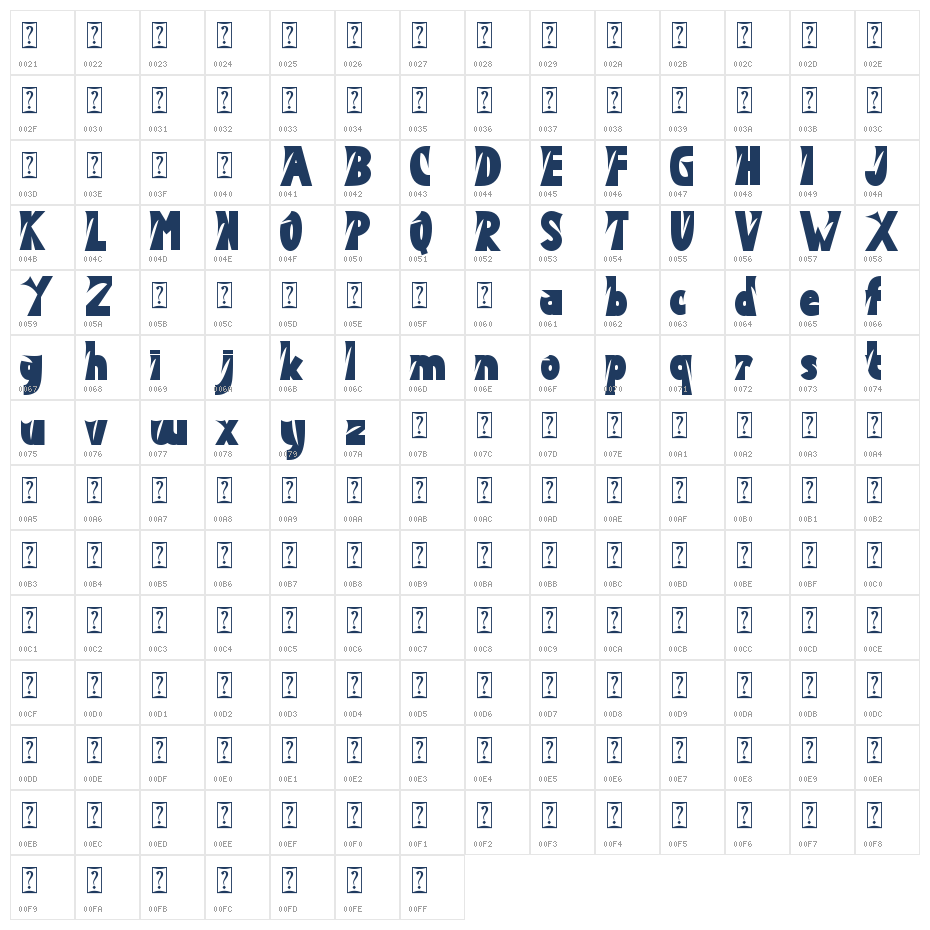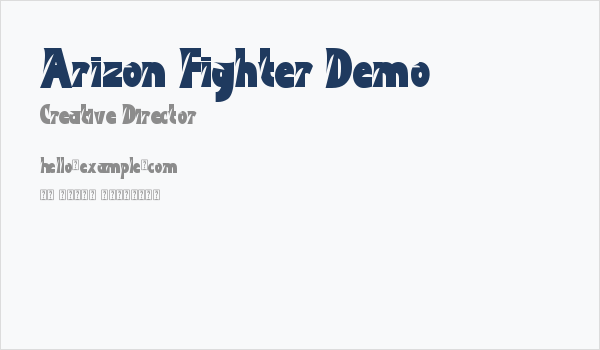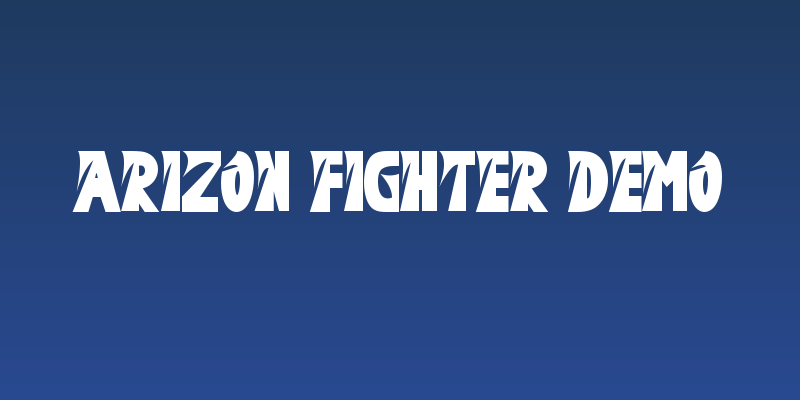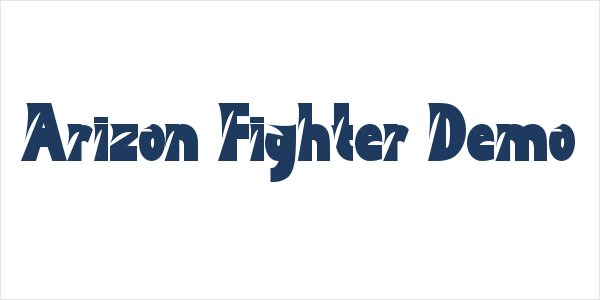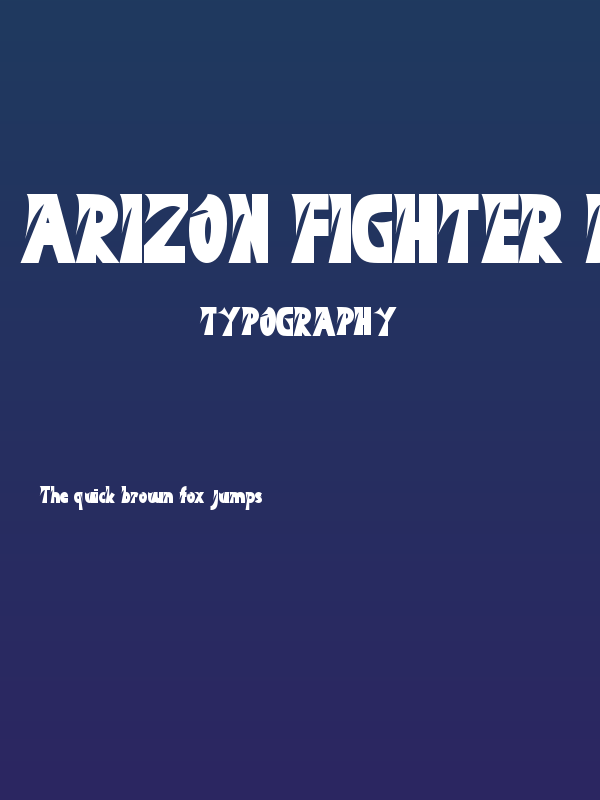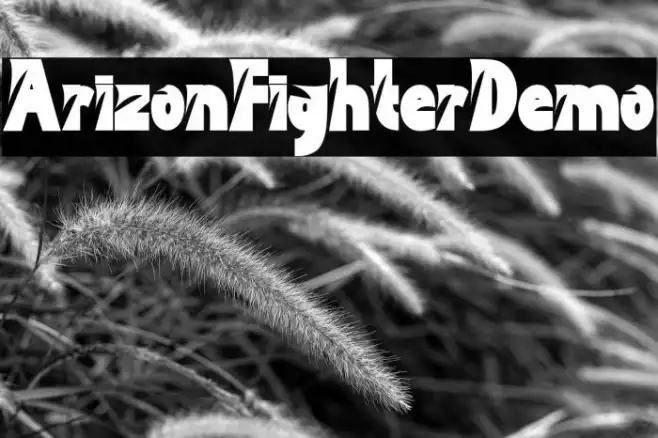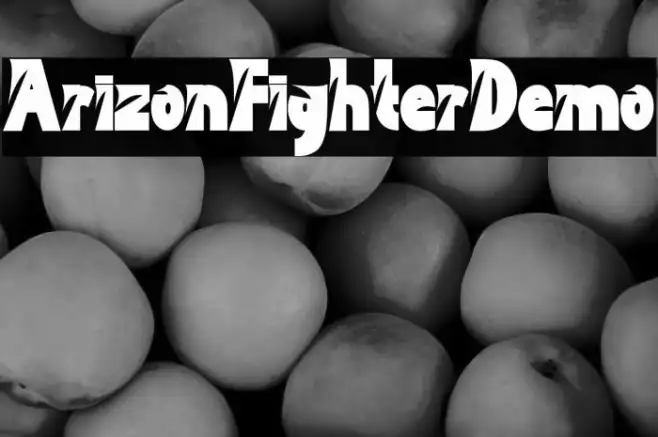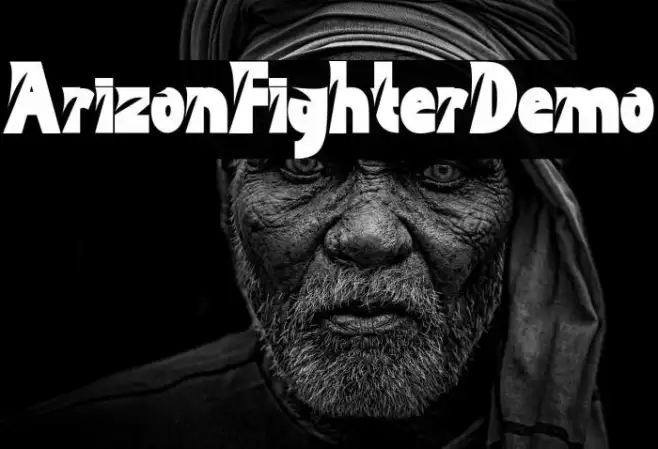
Arizon Fighter Demo Font
A bold, decorative display font with a geometric, angular style, featuring sharp edges and contrasting thick and thin strokes.
| Overall Style | Modern, Geometric, Decorative |
| Use Case | Headlines, Posters, Logos, Branding |